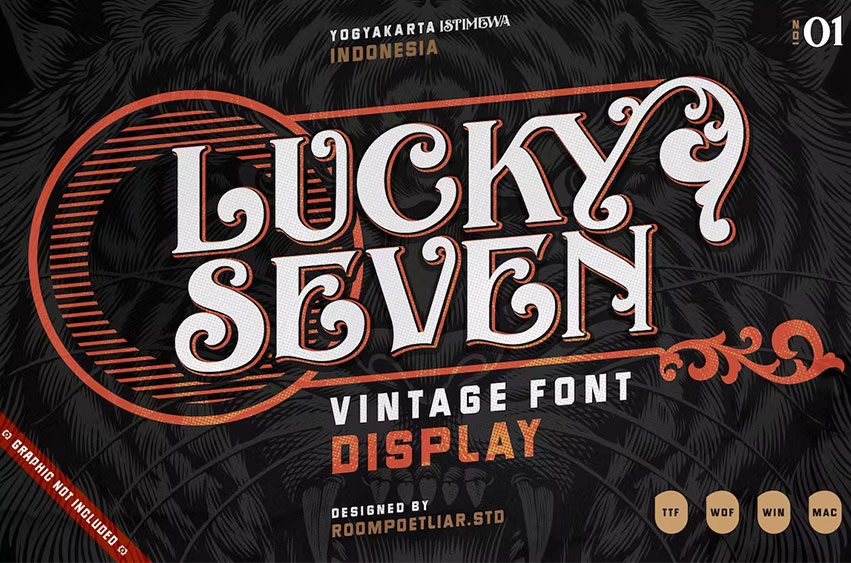
Lucky 7 Font
Lucky 7 Font - Web lucky seven font. Introducing a new vintage modern serif typeface from roompoetliar, lucky seven is a cool, bold. Web lucky seven font is vintage display font.
Web lucky seven font is vintage display font. Web lucky seven font. Introducing a new vintage modern serif typeface from roompoetliar, lucky seven is a cool, bold.
Introducing a new vintage modern serif typeface from roompoetliar, lucky seven is a cool, bold. Web lucky seven font is vintage display font. Web lucky seven font.
Lucky 7 font details
Web lucky seven font. Introducing a new vintage modern serif typeface from roompoetliar, lucky seven is a cool, bold. Web lucky seven font is vintage display font.
Web lucky seven font is vintage display font. Introducing a new vintage modern serif typeface from roompoetliar, lucky seven is a cool, bold. Web lucky seven font.
Introducing a new vintage modern serif typeface from roompoetliar, lucky seven is a cool, bold. Web lucky seven font. Web lucky seven font is vintage display font.
Web lucky seven font is vintage display font. Web lucky seven font. Introducing a new vintage modern serif typeface from roompoetliar, lucky seven is a cool, bold.
Web lucky seven font. Web lucky seven font is vintage display font. Introducing a new vintage modern serif typeface from roompoetliar, lucky seven is a cool, bold.
Web Lucky Seven Font.
Web lucky seven font is vintage display font. Introducing a new vintage modern serif typeface from roompoetliar, lucky seven is a cool, bold.